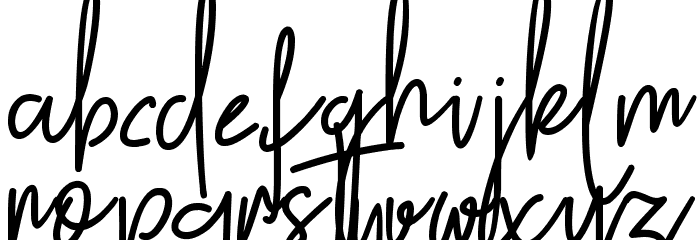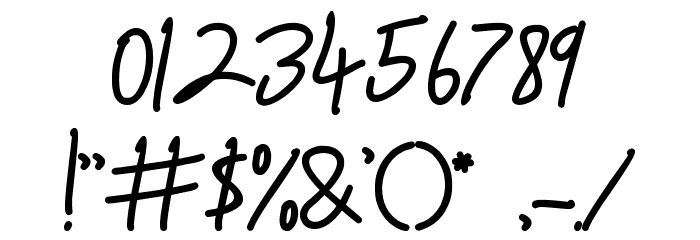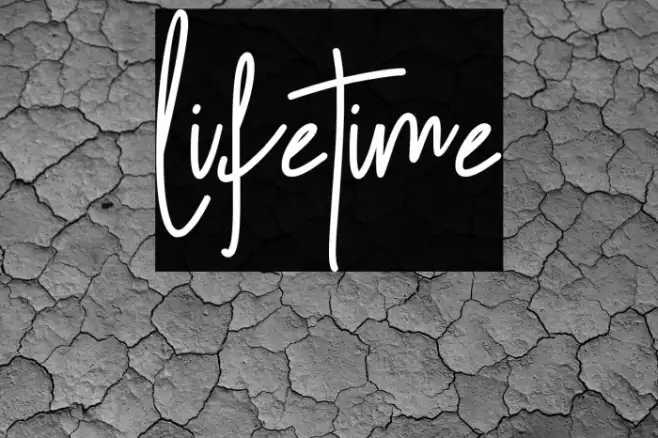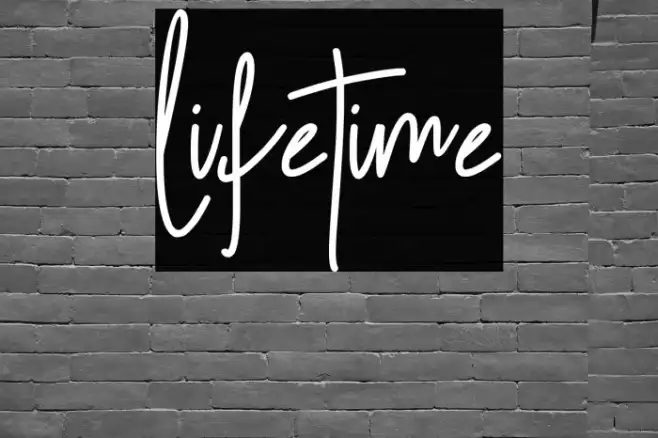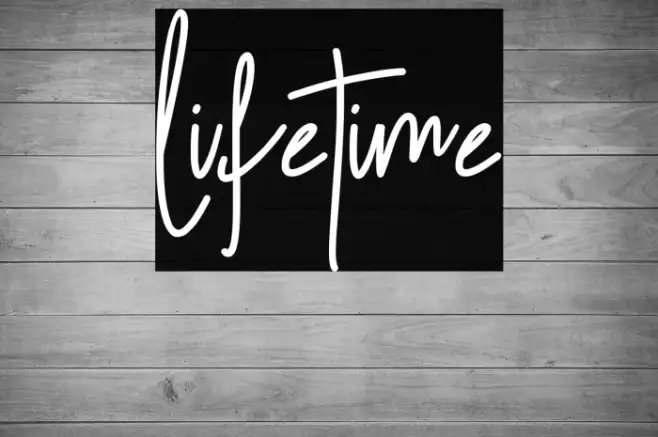
lifetime Font
This font features a lively and expressive handwritten style, characterized by its fluid and dynamic strokes. The letters have a natural, organic flow, with varying thickness that adds a sense of movement and personality. The uppercase letters are tall and slightly slanted, while the lowercase letters maintain a consistent rhythm with playful loops and curves. The numbers and special characters follow the same energetic style, making the font versatile for creative projects. Its informal and artistic appearance makes it suitable for designs that require a personal touch.
A lively, expressive handwritten font with fluid, dynamic strokes.
- Font: lifetime
- Proposed Projects: Ideal for greeting cards, invitations, personal branding, and artistic posters.
- Category: Handwritten
- Use Case: Logos, Headlines, Artistic designs